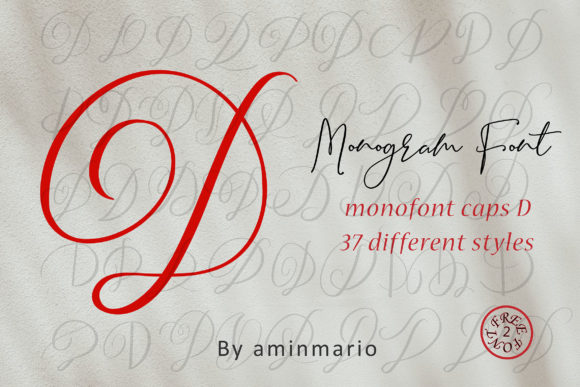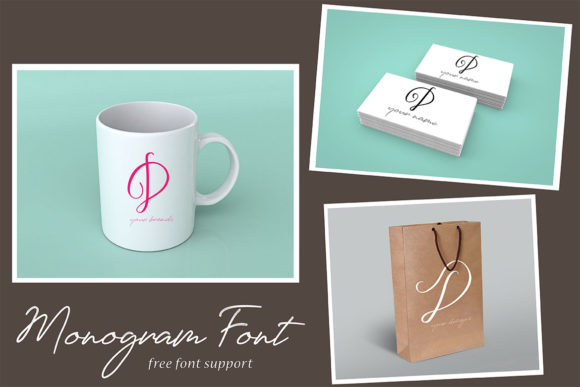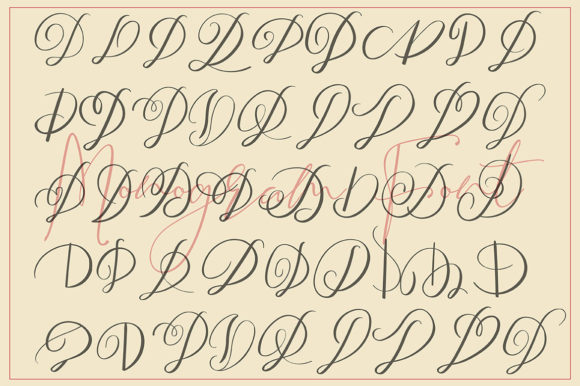
Monogram D | Monofont Caps D Font
About Monogram D | Monofont Caps D Font
This MONOGRAM is natural handwriting of capital D with 36 different styles.
This is not for writing words or sentences, but for monograms. Bonus 2 Font that contains the uppercase and lowercase to support it.